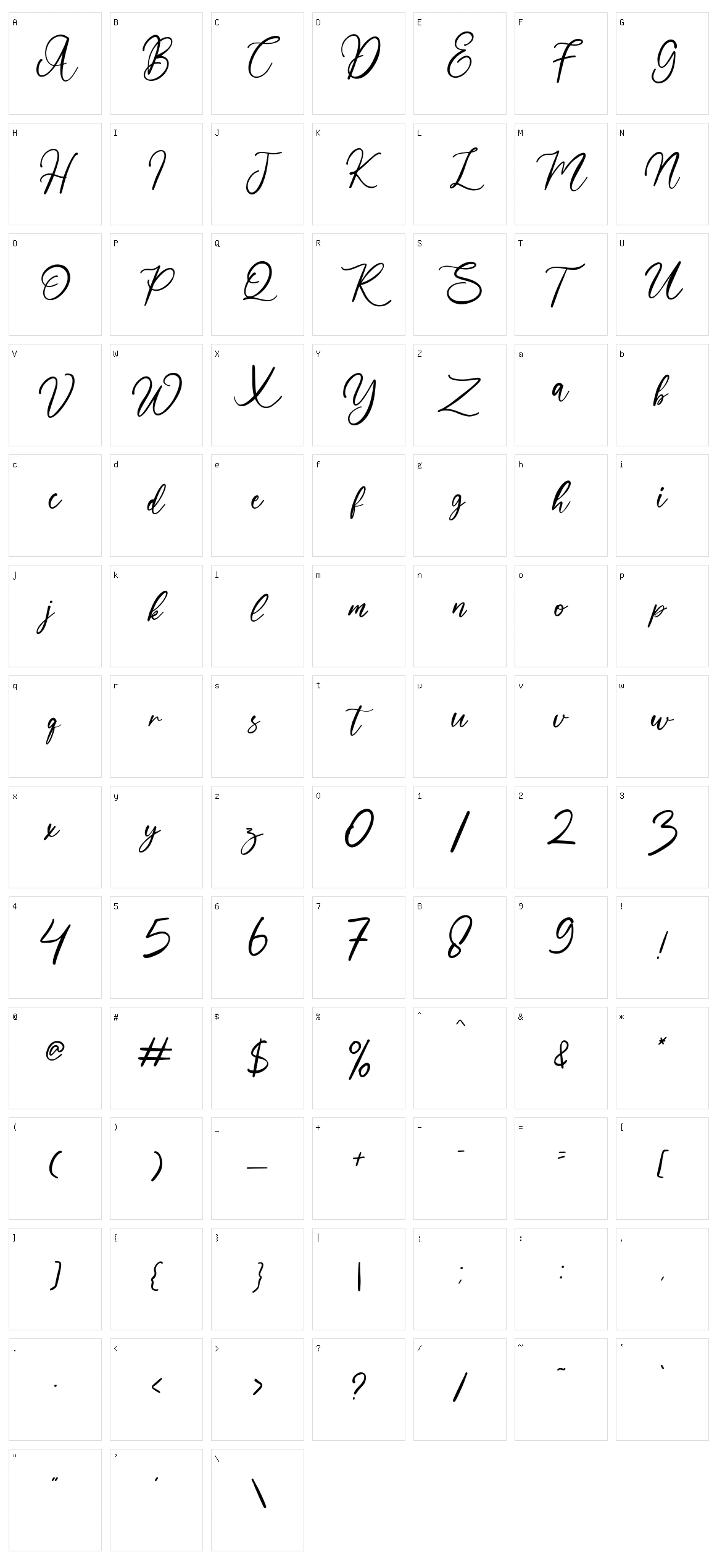
The free font Rabelan is carefully designed by Vultype, showcasing a thoughtful balance of creativity and usability and falls under the Script font style. When you download the ZIP file, it contains only 897.99 KB of font files, making it lightweight and quick to download. Please review the license details below to understand permitted usage and distribution rights. If license information is not available, we recommend using this font for personal projects only or contacting the author directly for commercial usage permissions.